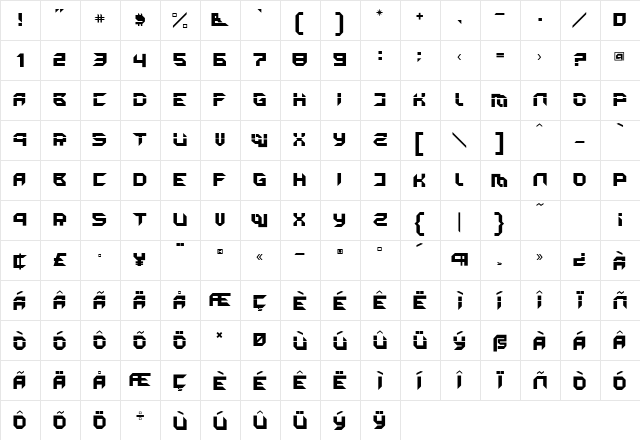
MetronClosed Plain Font Preview
MetronClosed Plain
MetronClosed Plain Font Details
Design Context for MetronClosed Typeface
MetronClosed is a composed and adaptable typeface that performs quietly and consistently across a wide range of design contexts.
Pro Tip: Pair MetronClosed with a font of contrasting weight or personality to build a more expressive typographic hierarchy.